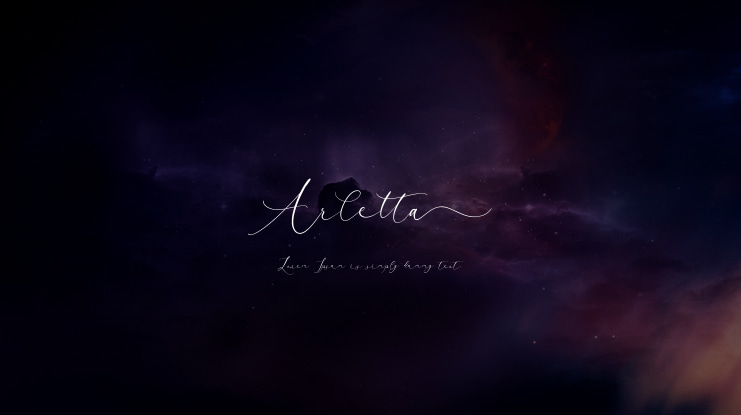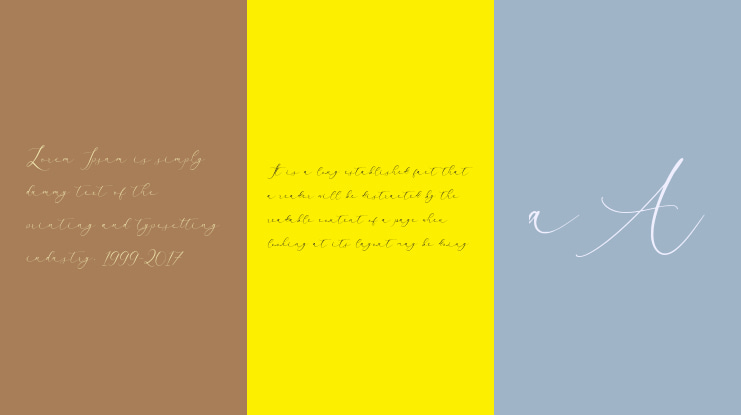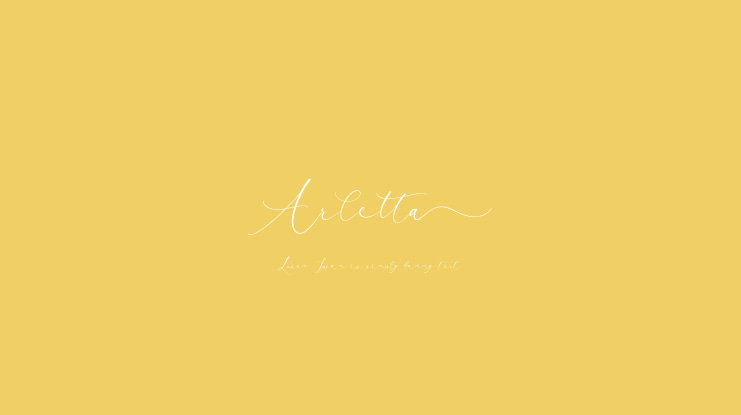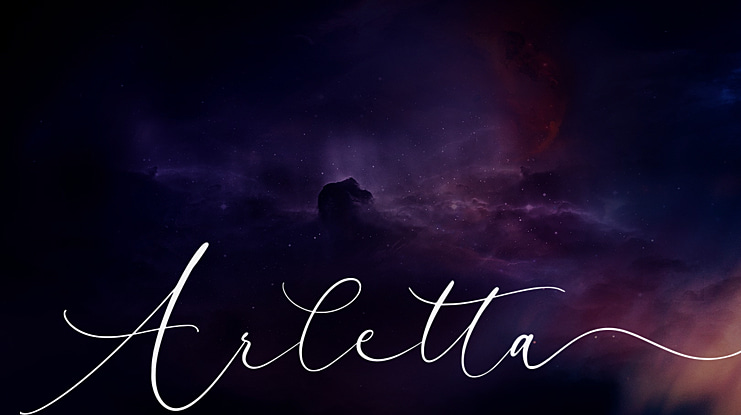
Arletta Font
Proudly Present, Arletta Font.
Arletta is a Stylist Modern Script Font.
Arletta is perfect for product packaging, branding project, megazine, social media, wedding, or just used to express words above the background.
Lowercase font Stylistic Alternates Ligatures Symbols & Punctuation OpenType Features.